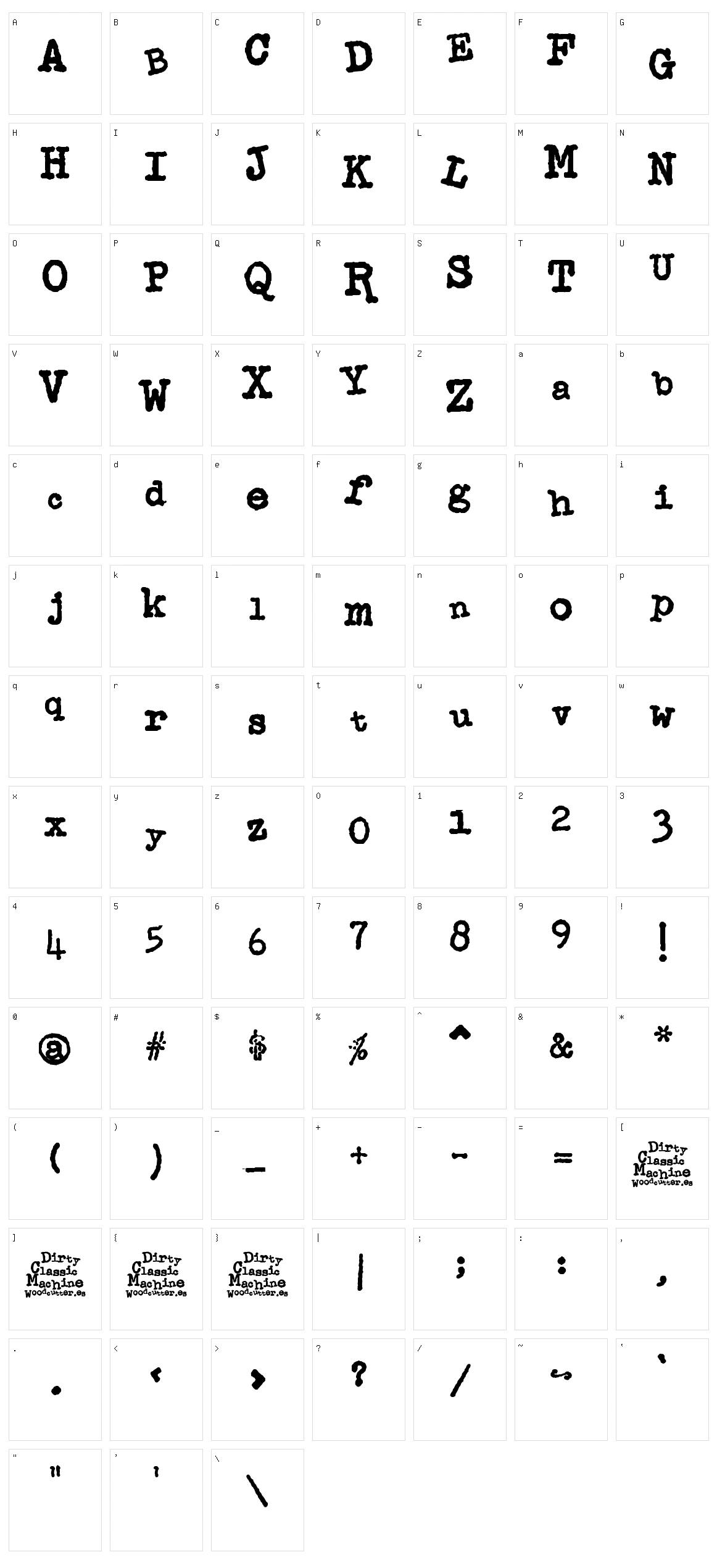
The free font Dirty Classic Machine is carefully designed by Woodcutter, showcasing a thoughtful balance of creativity and usability and falls under the Distorted font style. When you download the ZIP file, it contains only 42.87 KB of font files, making it lightweight and quick to download. Please review the license details below to understand permitted usage and distribution rights. If license information is not available, we recommend using this font for personal projects only or contacting the author directly for commercial usage permissions.